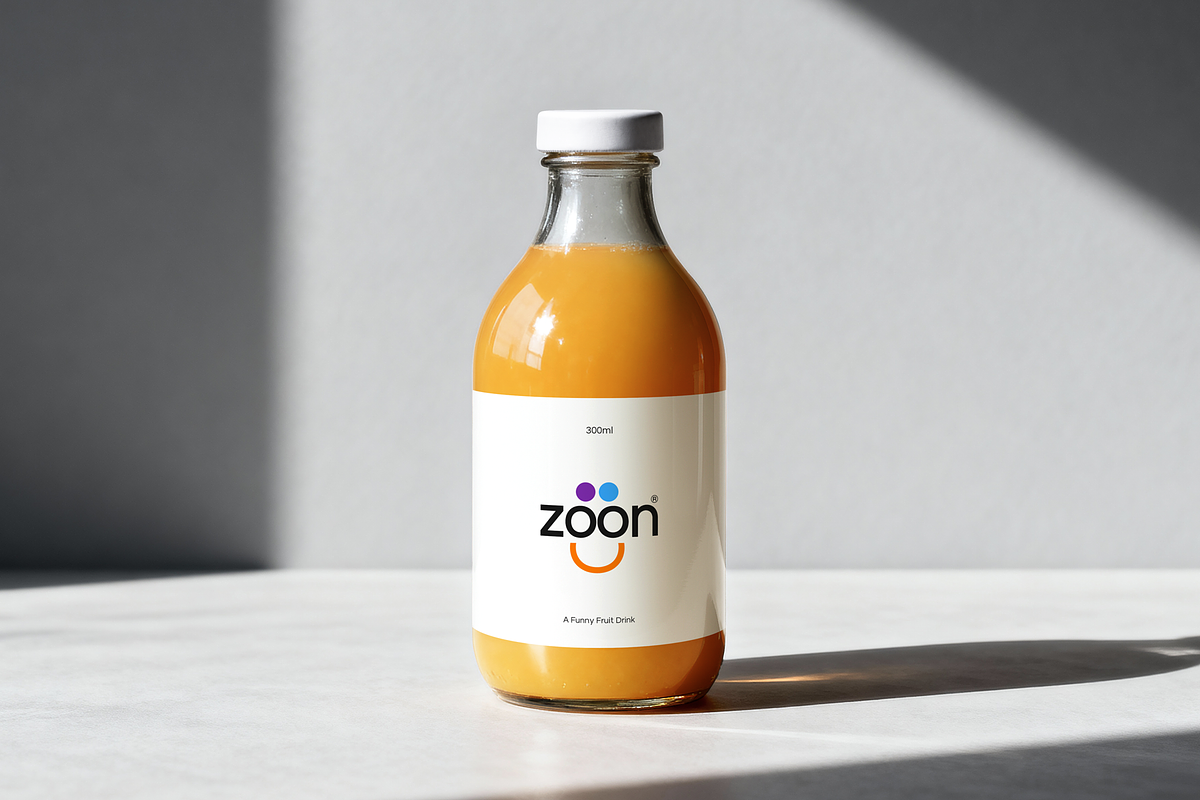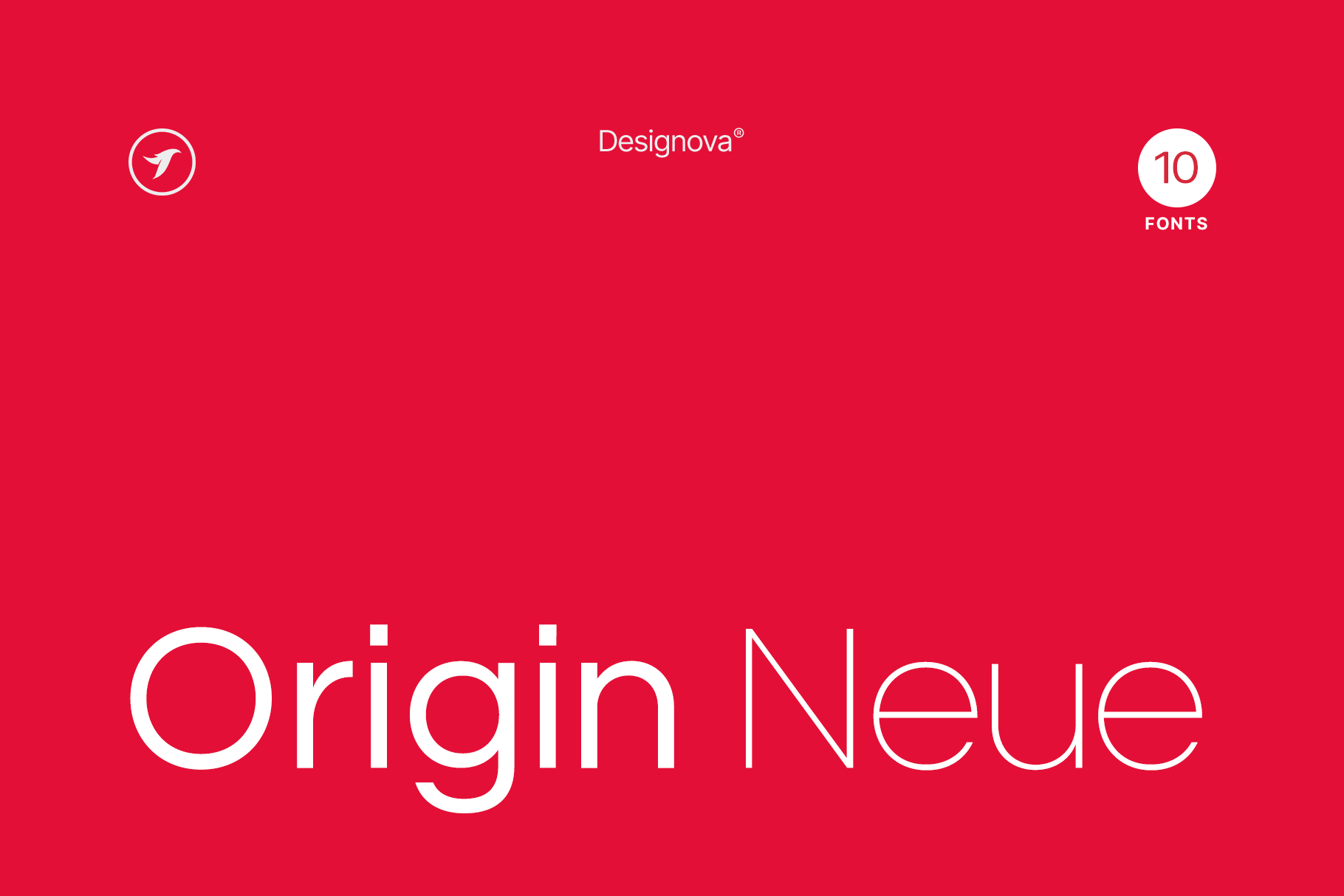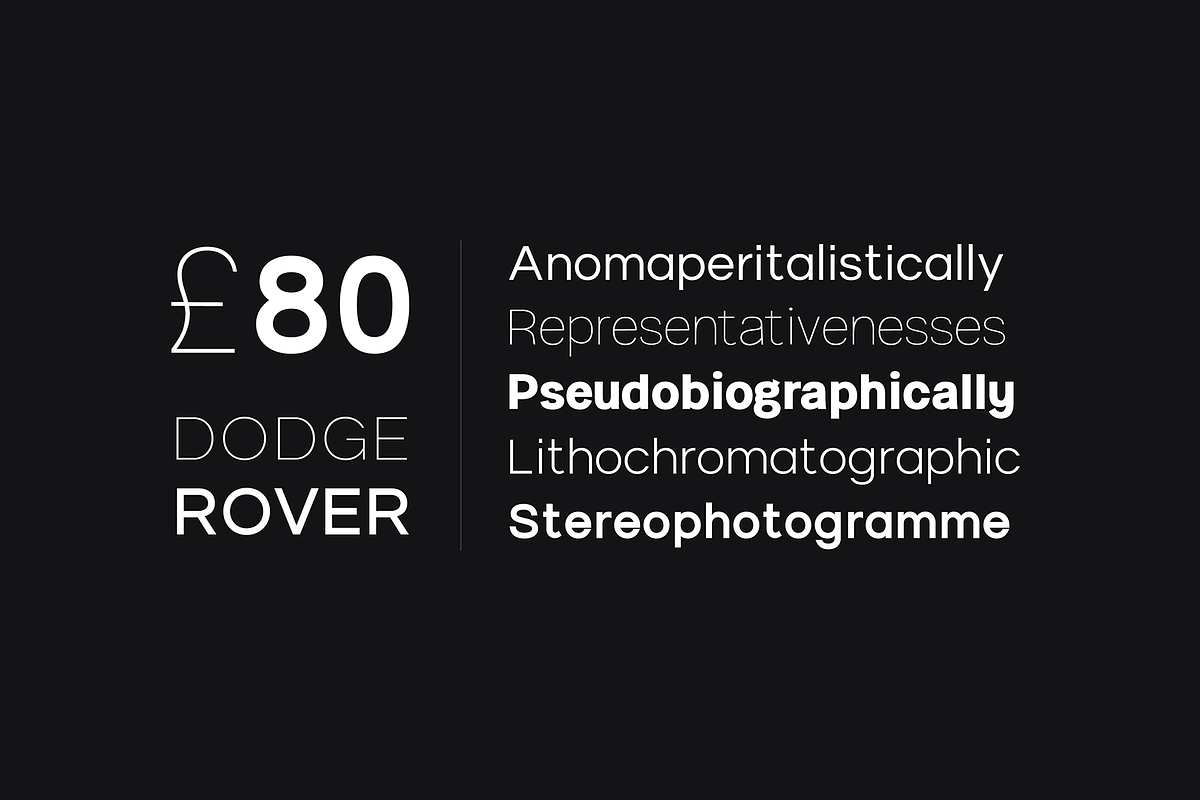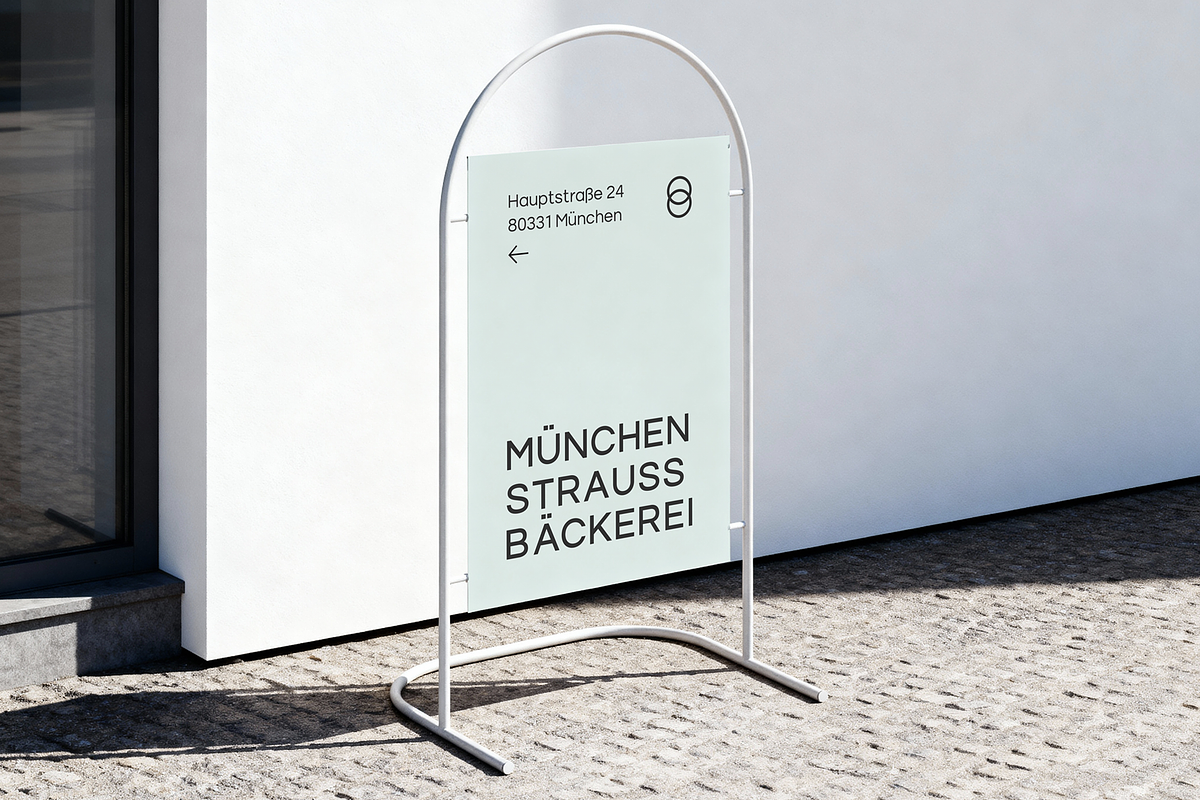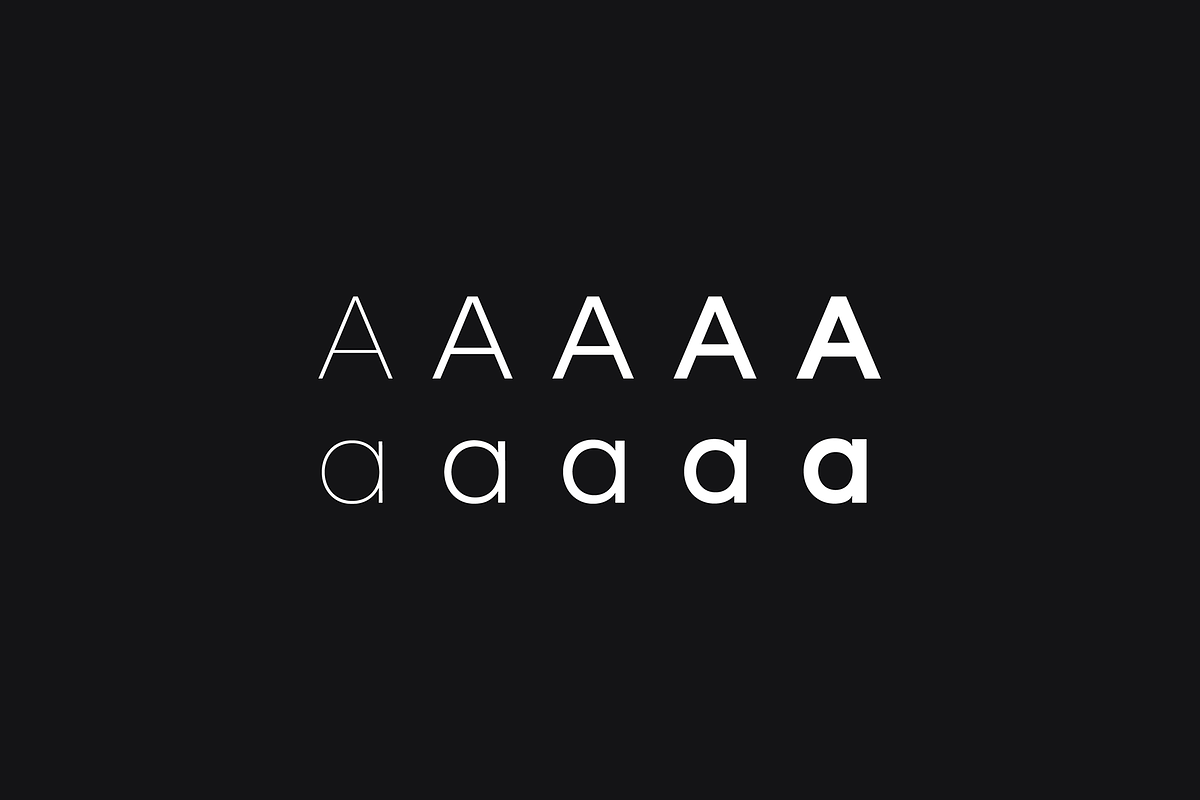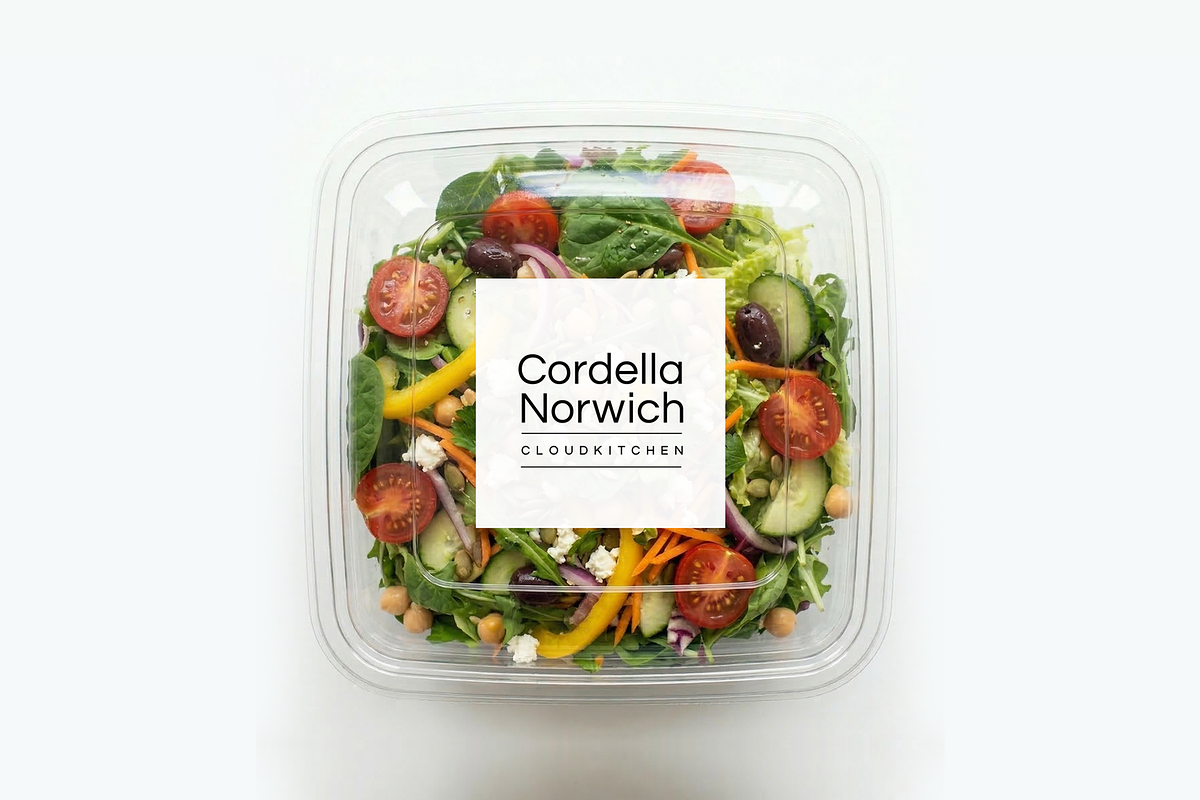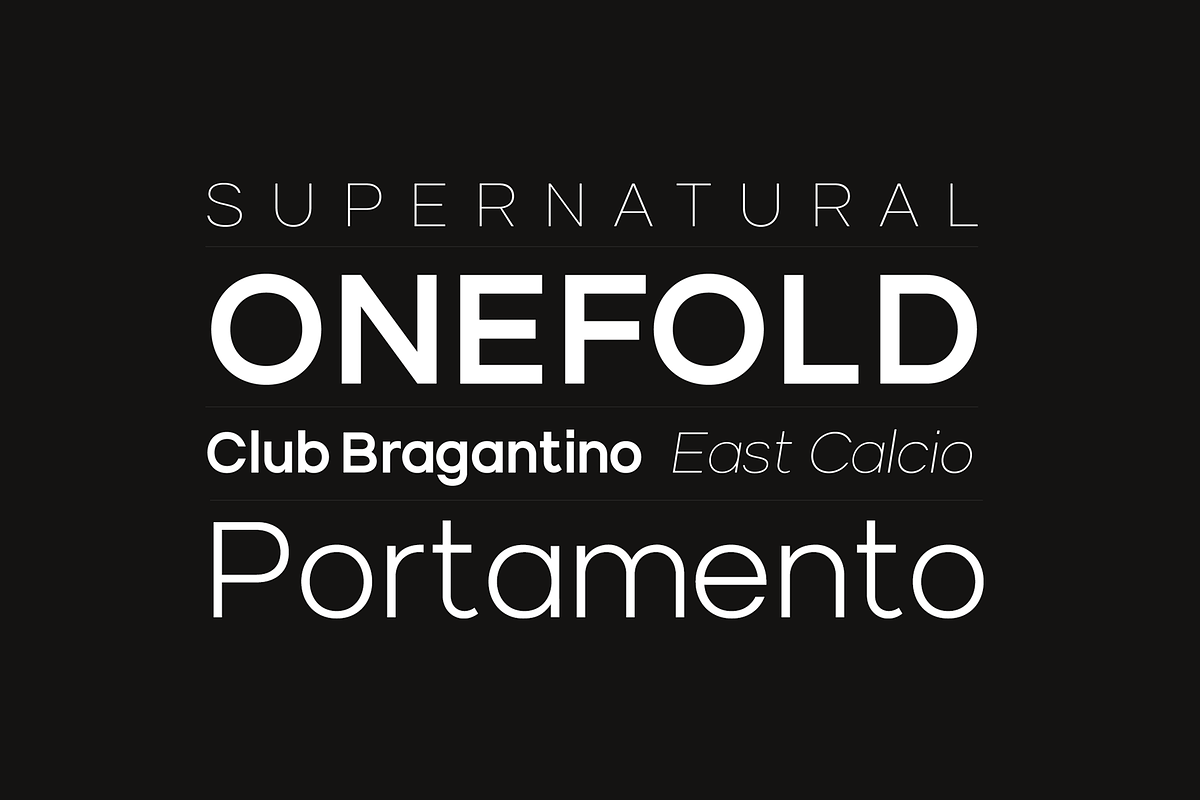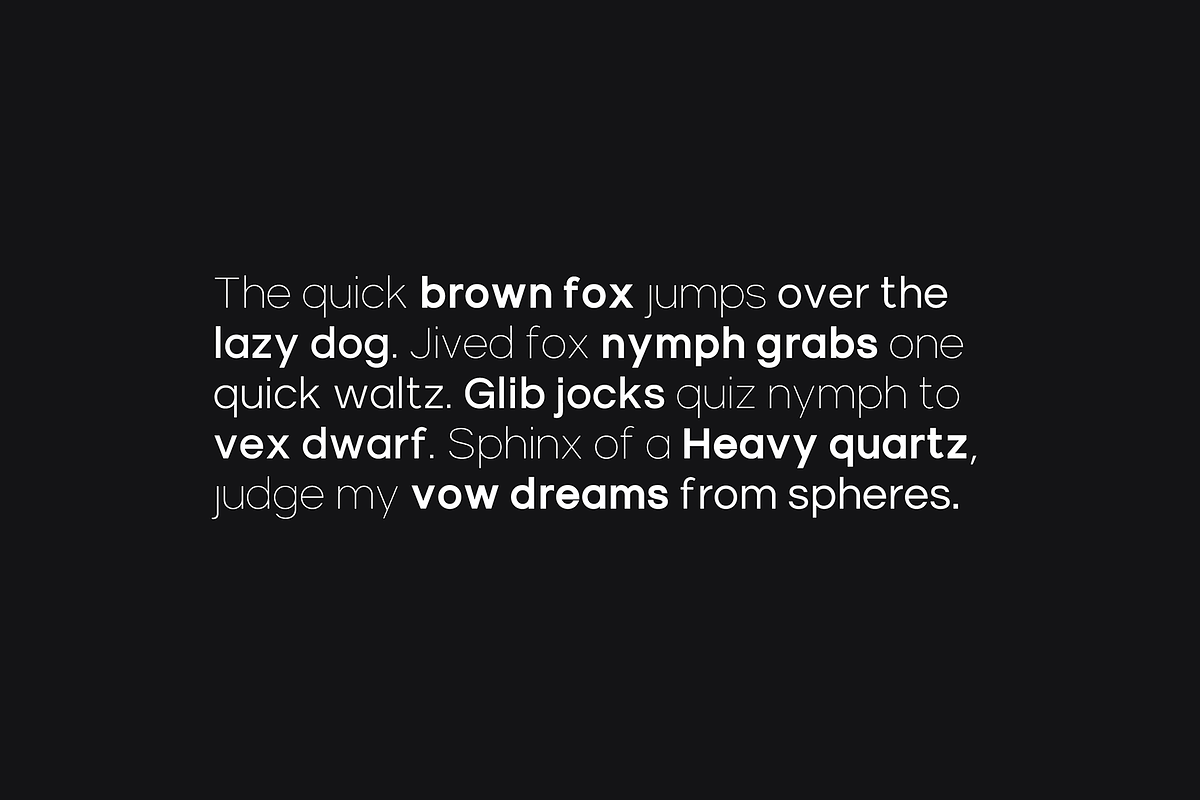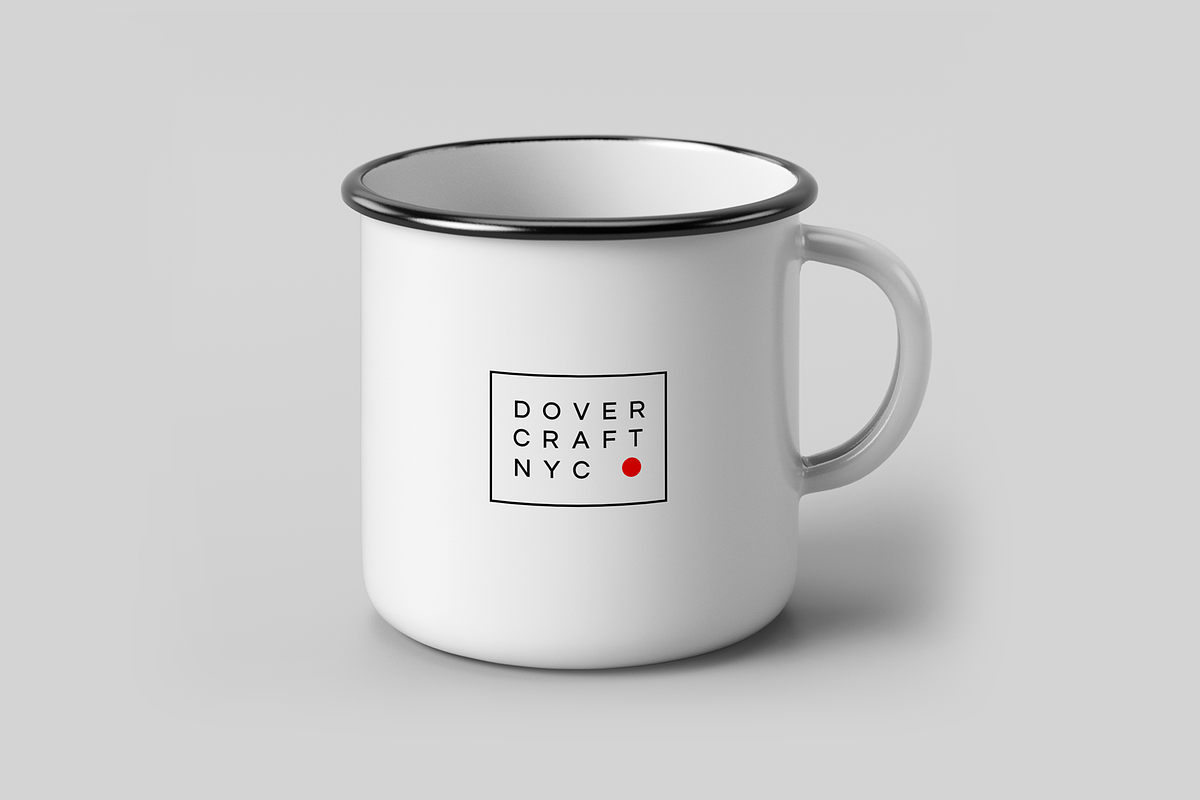
Origin - Modern Typeface (10 Fonts)
ABOUT THE TYPEFACE:
Origin Neue is a completely refined, contemporary sans-serif typeface designed for clarity, balance, and precision, with the finest Swiss type design at its core. Built on clean geometric foundations and softened with subtle humanist touches, it delivers a versatile typographic voice that feels both modern and timeless.
This updated version introduces improved spacing, refined curves, and enhanced consistency across all glyphs, making it ideal for high-end branding, editorial layouts, and digital interfaces.
Origin Neue excels in both large display settings and smaller body text, offering a calm, confident presence without visual noise.
Handcrafted and designed with powerful OpenType features in mind, each weight includes extended language support for Western European, Central European, and Southeastern European sets. A total of 306 glyphs are available, supporting more than 100 languages.
USE CASES:
Origin Neue is crafted for versatility across modern design needs:
Branding & visual identity systems
Logo design & wordmarks
Packaging (premium, minimal, lifestyle brands)
Editorial design (magazines, lookbooks, portfolios)
Web & UI design
Signage & environmental graphics
Its clean structure makes it especially suitable for:
Luxury & lifestyle brands
Architecture & interior studios
Fashion & beauty industries
Tech startups & modern businesses
Origin Neue reflects Designova’s commitment to creating elegant, highly usable type systems that bridge aesthetics and functionality.
Clean geometric construction
Optimised kerning & spacing
Multilingual support (100+ Languages)
Professional-grade consistency
Suitable for print and screen